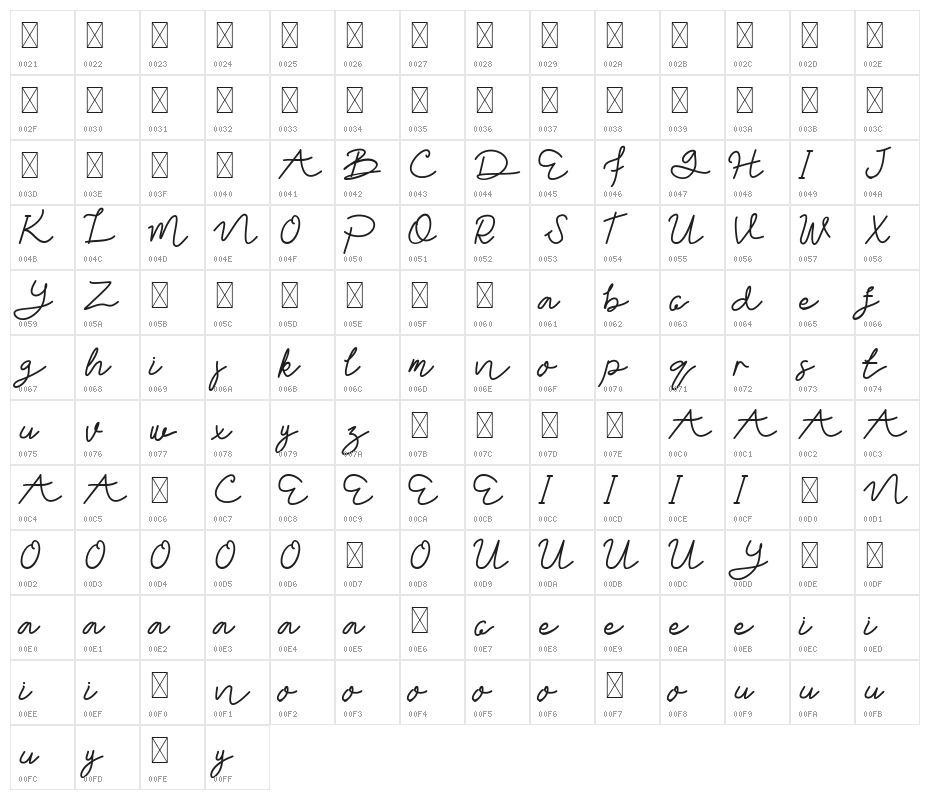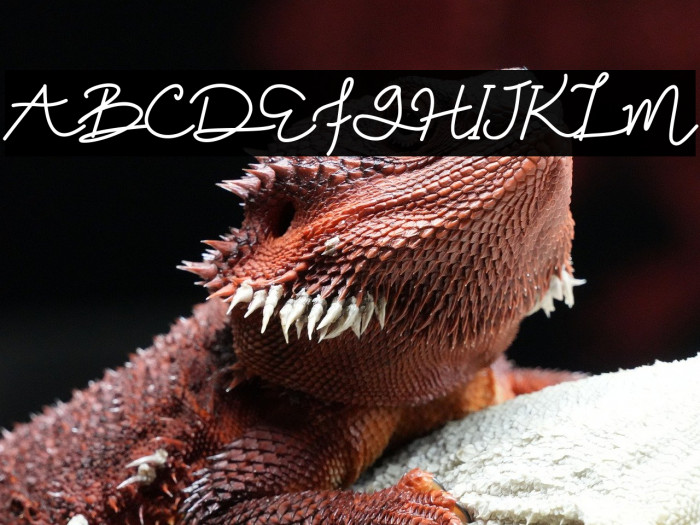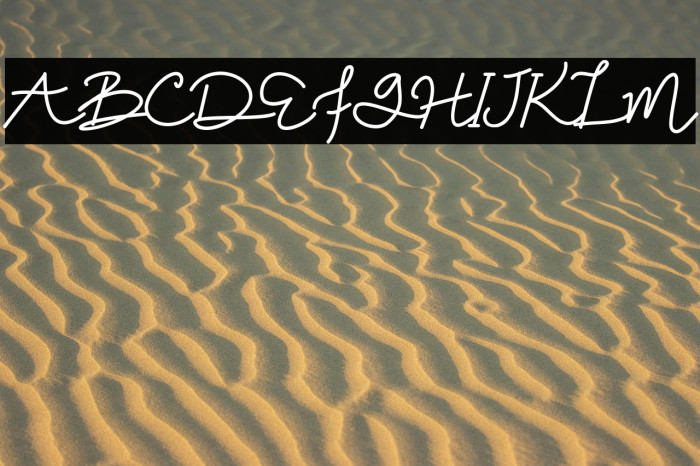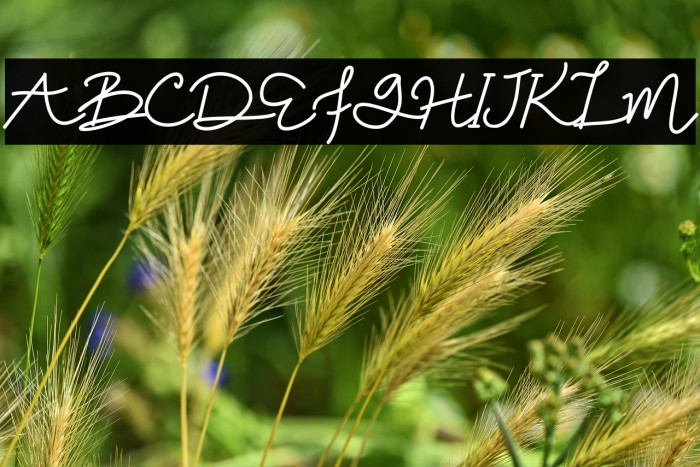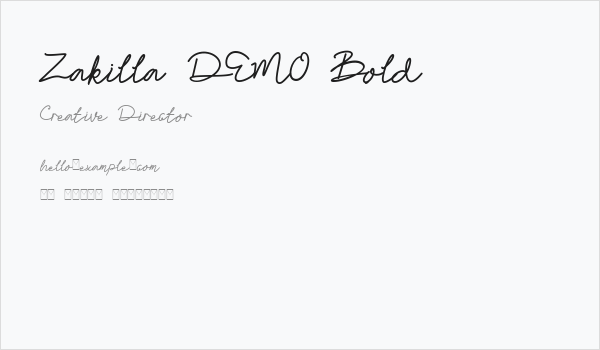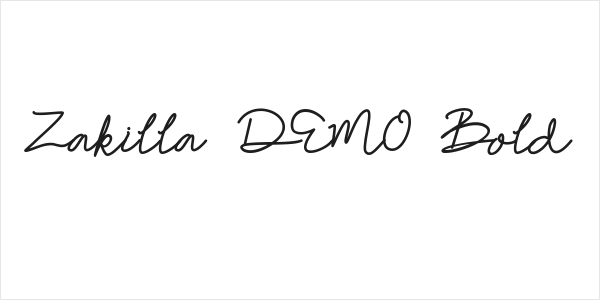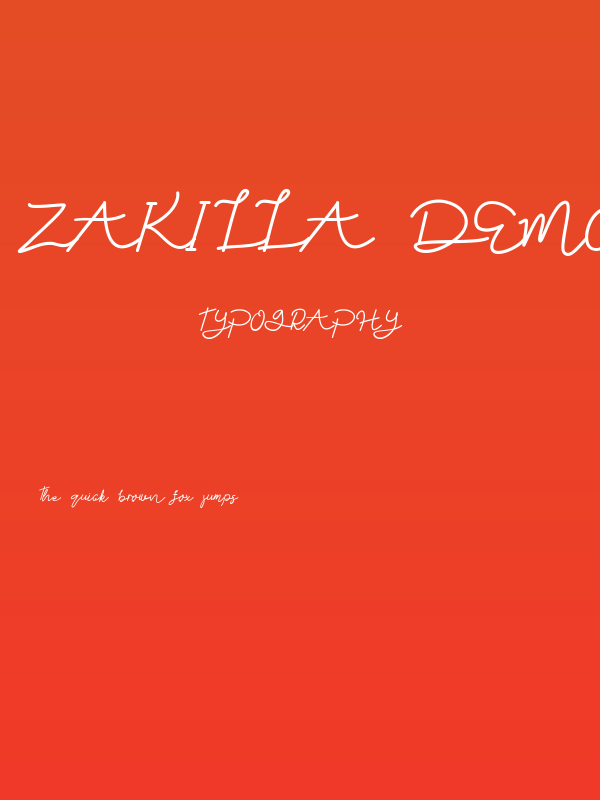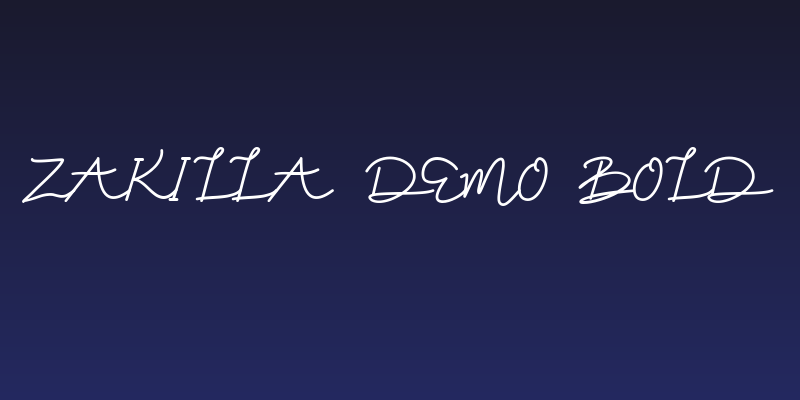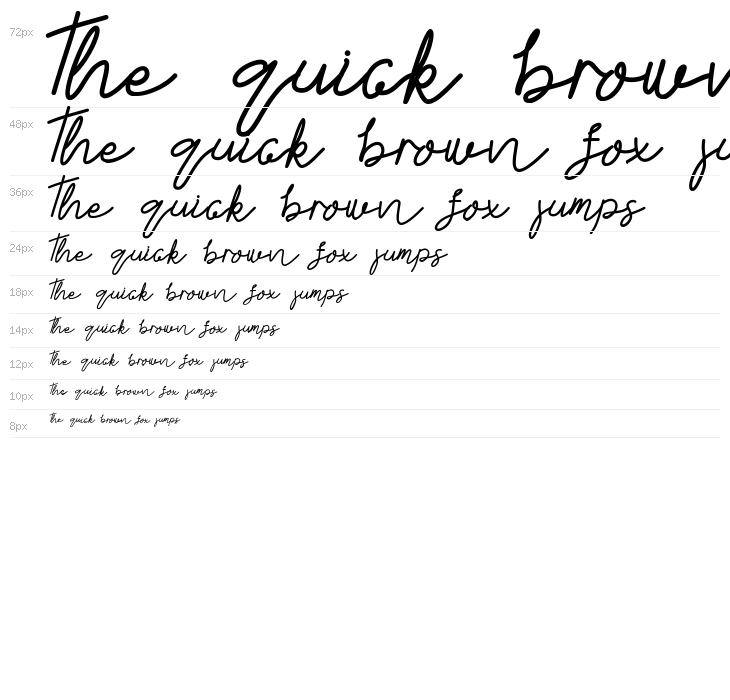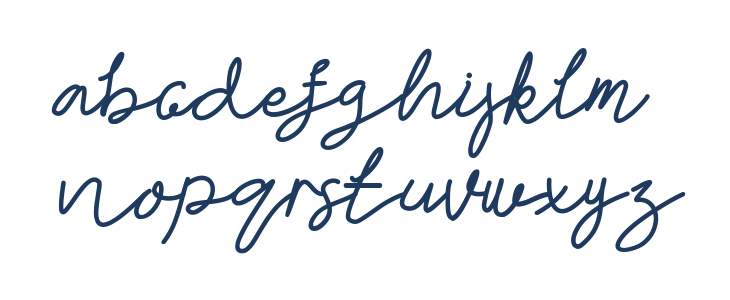
Zakilla DEMO Bold Font
Zakilla DEMO Bold Description
This font features a flowing, cursive style that mimics elegant handwriting. The uppercase letters are tall and slightly slanted, with smooth, connected strokes that give a sense of fluidity and grace. The lowercase letters follow suit, maintaining a consistent slant and connection between characters, enhancing the script's cohesive look. The absence of numbers and special characters suggests a focus on alphabetic expression, ideal for decorative purposes. The overall design exudes a sense of sophistication and personal touch, making it suitable for projects that require a handwritten aesthetic.
| Overall Style | Elegant, Handwritten |
| Use Case | Logos, Invitations, Decorative Text |
| Proposed Projects | Ideal for wedding invitations, personal branding, greeting cards, and decorative headings. |